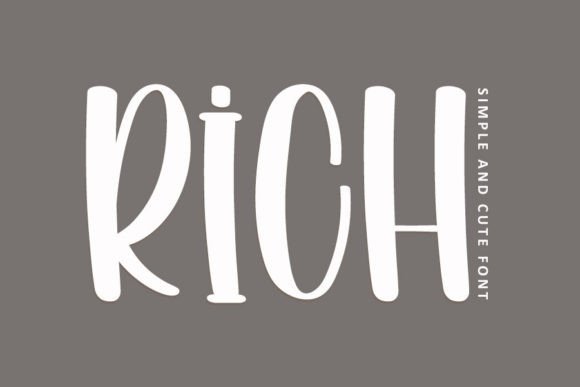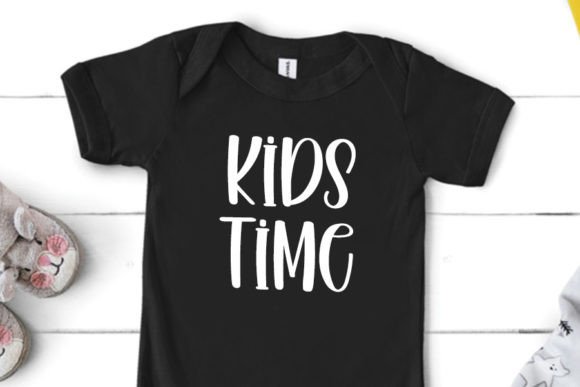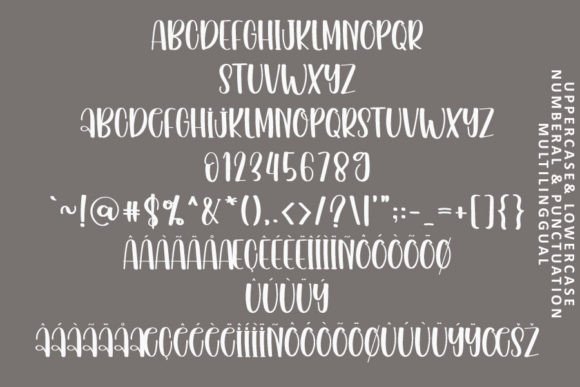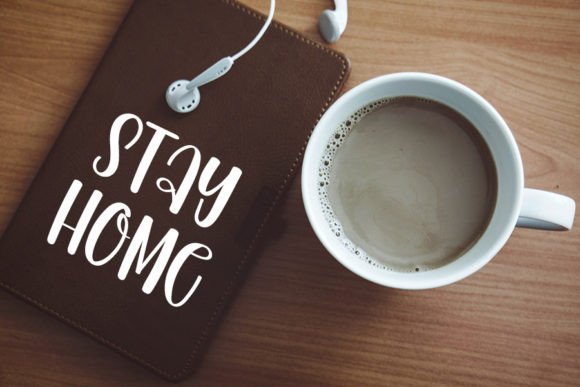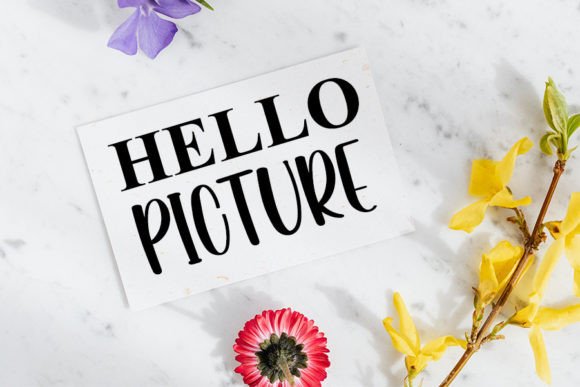
Rich Font
About Rich Font
Rich is a delightful and approachable handwritten font that exudes a contemporary vibe while maintaining impeccable form. Infused with a sense of whimsy and a touch of quirkiness, this font has the remarkable ability to inject a playful energy into your designs. Adding Rich to your projects is a confident choice that is bound to yield results you’ll love.
The font’s fun and friendly demeanor make it a standout choice for a variety of design applications. Its handwritten charm brings a personal touch to your creations, making it particularly well-suited for projects where approachability and a touch of informality are desired.
The contemporary atmosphere of Rich ensures that it effortlessly fits into the visual language of modern design. Whether you’re working on branding, marketing collateral, invitations, or digital content, this font adapts seamlessly, enhancing the overall appeal of your work with its lively personality.
Rich stands out as a unique and captivating option in your font toolkit. Its playful nature doesn’t sacrifice precision; each character is carefully crafted, contributing to the font’s overall charm and readability. This balance between fun and form makes Rich a versatile choice for designers looking to add a dynamic and engaging element to their projects.
Incorporating Rich into your designs is an invitation to creativity. It’s a font that doesn’t take itself too seriously, yet it brings a sense of style and contemporary flair to your work. Whether you’re aiming for a casual or upbeat tone, Rich is the perfect companion to infuse a dose of joy into your creative endeavors.